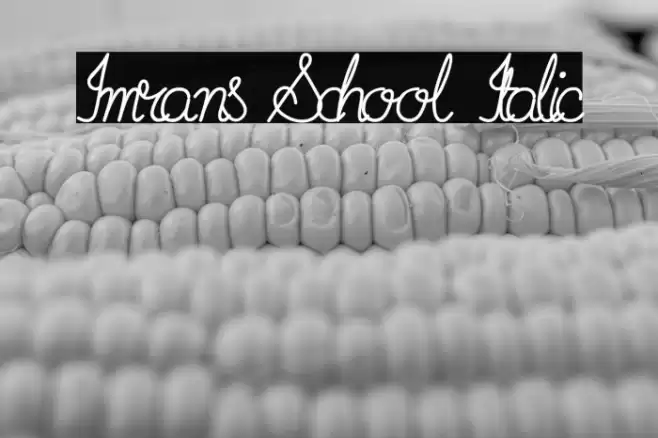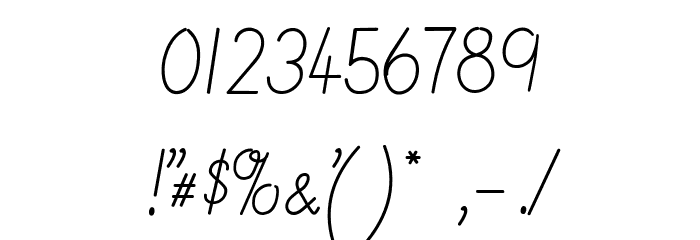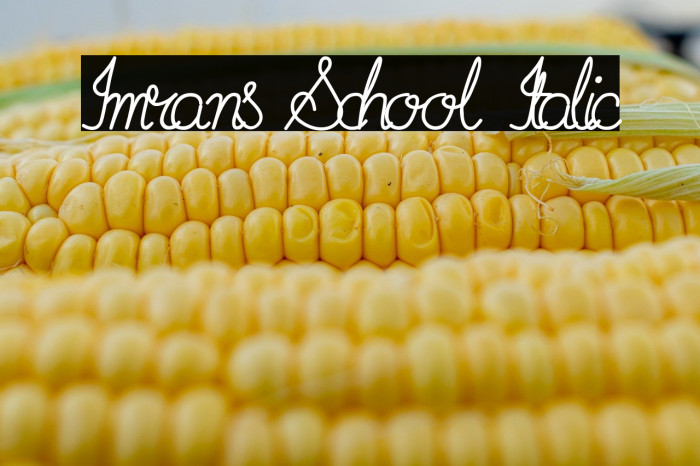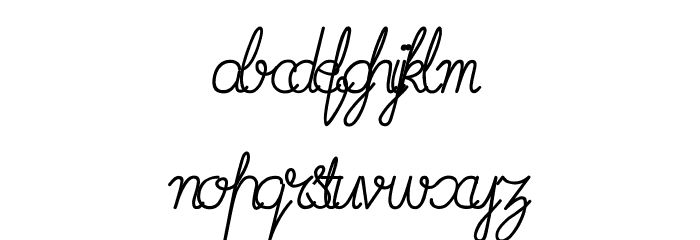
Imrans School Italic Font
Imrans School Italic Description
This font features a flowing, cursive style with elegant loops and curves, giving it a handwritten appearance. The uppercase letters are tall and slender, with a slight slant to the right, enhancing the italicized effect. Lowercase letters maintain a consistent flow, connecting smoothly in a script-like manner. Numbers and special characters are designed to match the overall style, with a graceful and cohesive look. The font's delicate strokes and artistic flair make it suitable for creative and decorative purposes.
A cursive, italic font with elegant loops and a handwritten style from Uncategorized fonts.
- Proposed Projects: Ideal for wedding invitations, greeting cards, personal branding, and artistic projects.
- Use Case: Logos, Invitations, Artistic designs